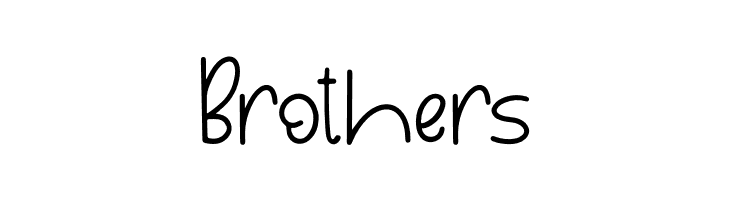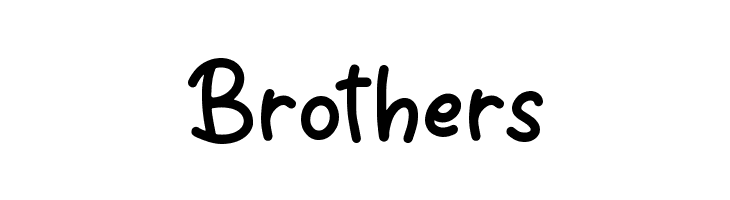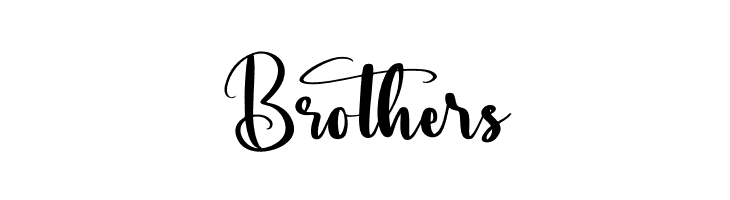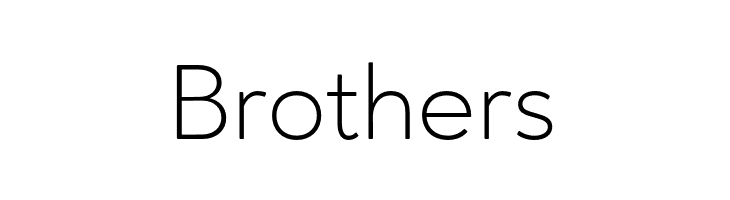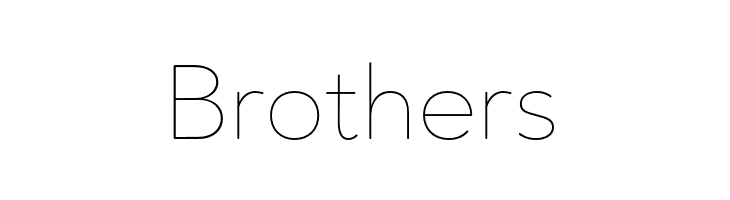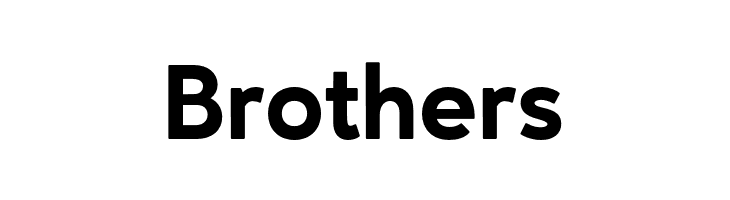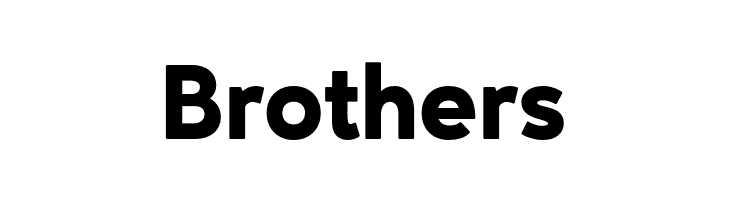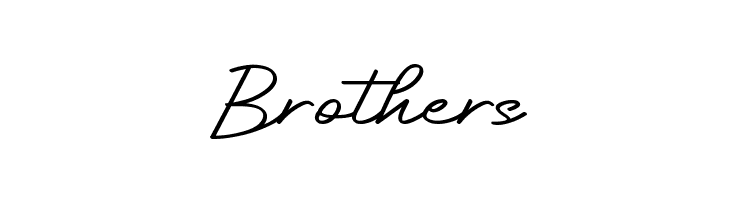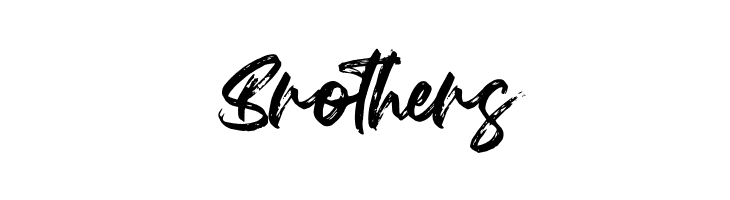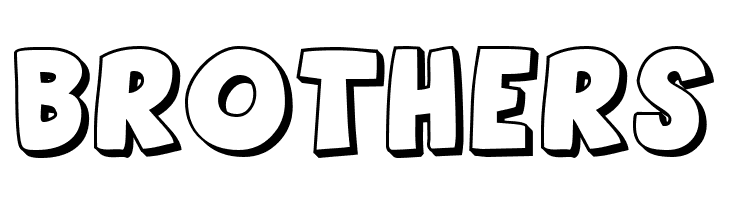
• Agent Orange
A playful, bold, and outlined font with a cartoonish style.
• Agent Orange
A bold, playful font with rounded characters and a cartoonish outline.
• Agent Red
A bold, playful font with a 3D shadow effect, perfect for eye-catching designs.
• Agent Red
A bold, playful font with a 3D shadow effect and blocky characters.
• AgentFrankRegular
A playful, hand-drawn style font with smooth, rounded letterforms.
• Ageone
A modern, geometric sans-serif font with clean lines and a sleek design.
• Ageone
A modern, geometric font with clean lines and balanced proportions.
• Ageone bold
• Ageone Regular
• Ageone serif
A sleek, modern font with geometric structure and consistent stroke width.
• Ageone serif
A modern, geometric font with clean lines and uniform stroke width.
• AgeoPersonalUse-Bold
A bold, modern sans-serif font with clean lines and rounded edges.
• AgeoPersonalUse-ExtraBold
A bold, modern sans-serif font with a geometric structure.
• AgeoPersonalUse-Heavy
A bold, modern sans-serif font with geometric lines and strong readability.
• AgeoPersonalUse-Light
A modern, geometric sans-serif font with clean lines and balanced spacing.
• AgeoPersonalUse-Medium
• AgeoPersonalUse-Regular
A modern, geometric sans-serif font with a clean and balanced design.
• AgeoPersonalUse-SemiBold
A clean, modern sans-serif font with a semi-bold weight and balanced design.
• AgeoPersonalUse-Thin
A sleek, modern font with thin lines and geometric shapes.
• Ageritta
An elegant, flowing script font with decorative swashes and balanced strokes.
• ÄggstockGravid
A bold, playful handwritten font with thick strokes and dynamic flow.